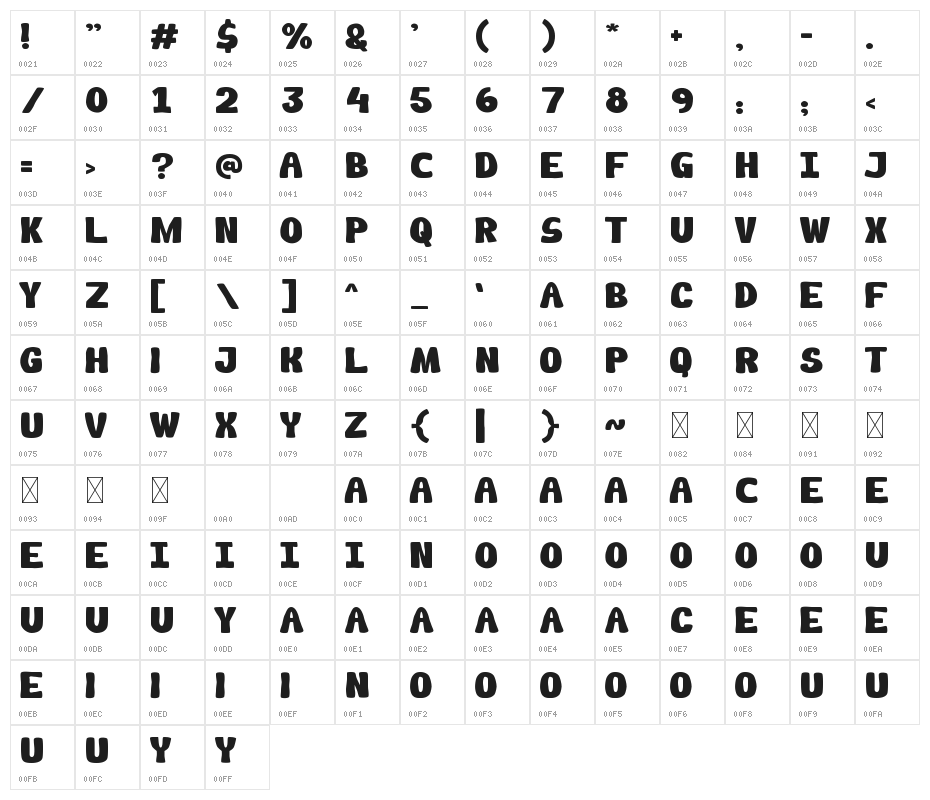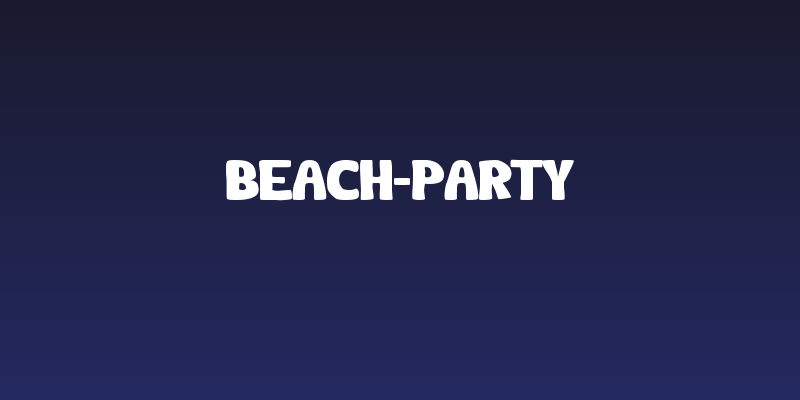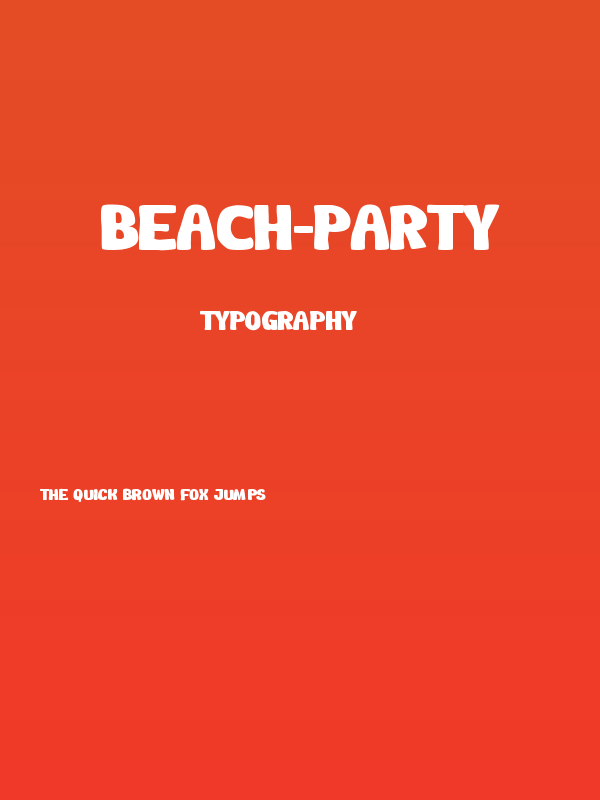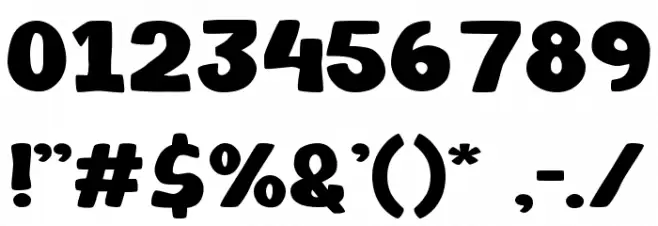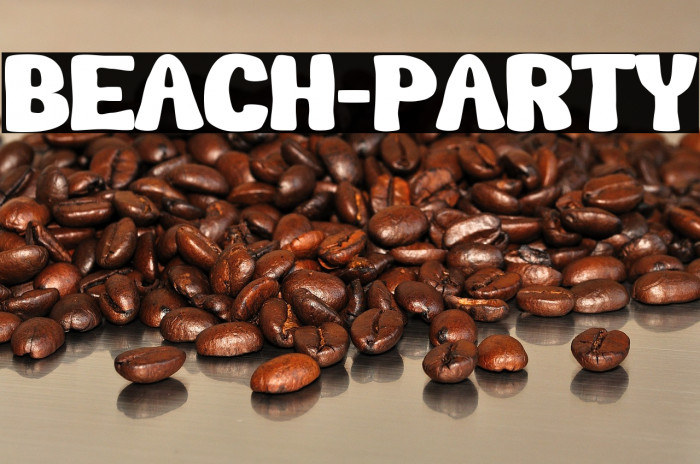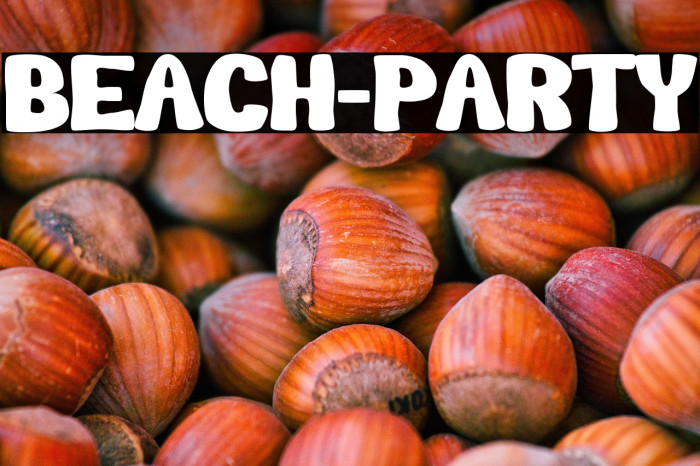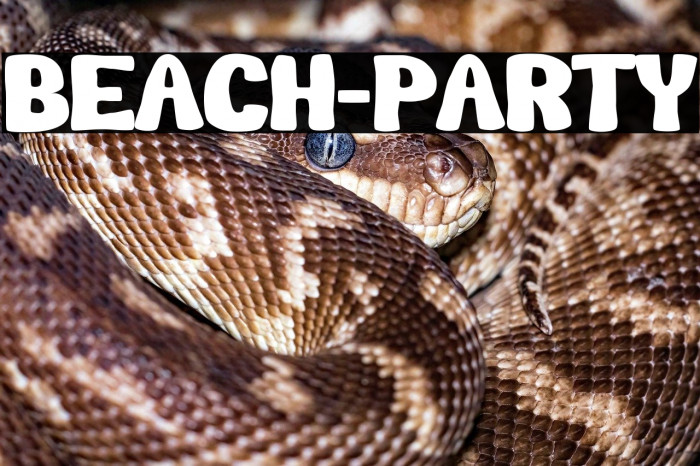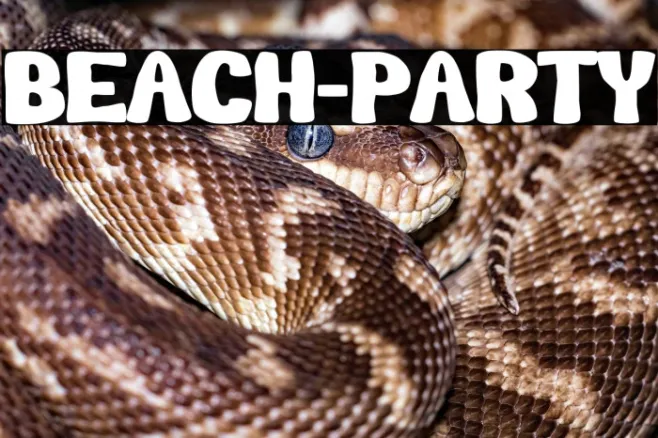
Beach-Party Font
Beach-Party Description
This playful and bold font exudes a fun and lively vibe, reminiscent of a beach party atmosphere. The characters are rounded and slightly irregular, giving them a hand-drawn appearance that adds to their charm. The uppercase and lowercase letters maintain a consistent style, with thick strokes and smooth curves. Numbers and special characters follow the same design principles, ensuring a cohesive look across all text. The font's overall appearance is casual and inviting, making it perfect for projects that aim to convey a sense of joy and relaxation.
| Overall Style | Playful, Casual |
| Proposed Projects | Ideal for summer event posters, children's book covers, playful branding, and beach-themed invitations. |